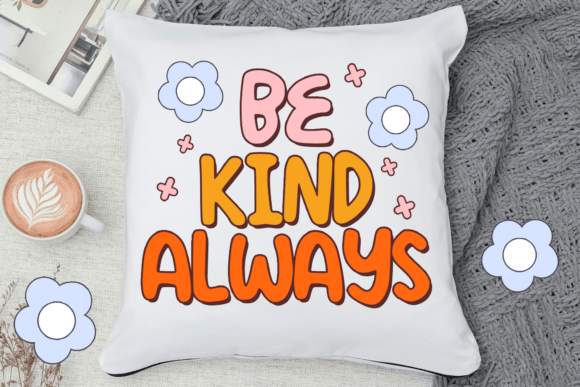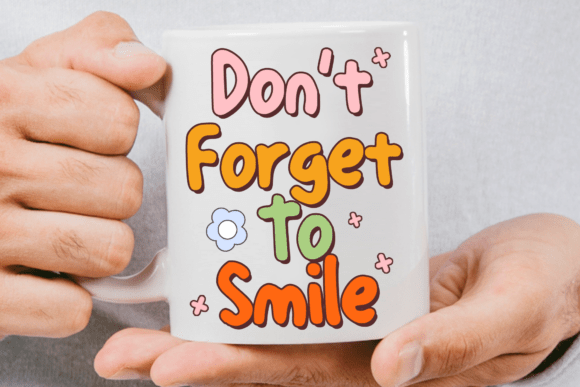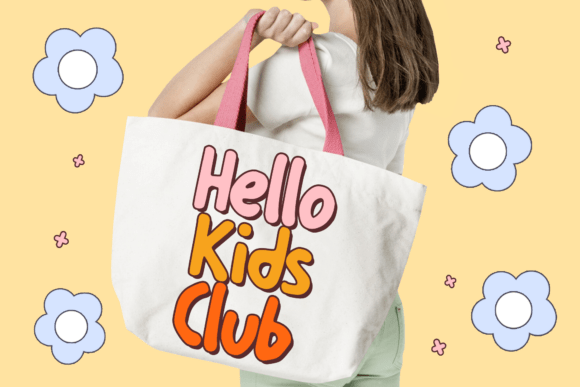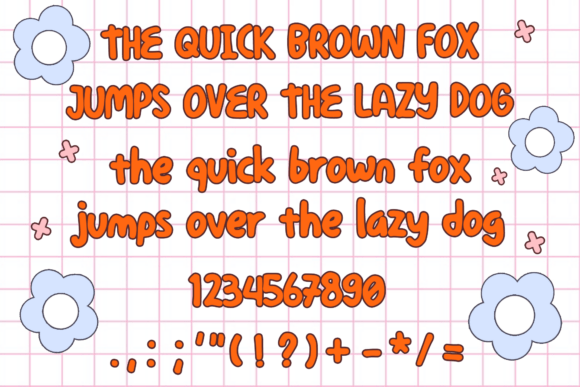
The Perfect Blend of Fun and Creativity
Have you ever been stuck in a design rut, desperate for that one element that will bring your project to life? Maybe it’s a quirky logo or a bold headline that screams for attention. Whatever it is, you know it’s out there – waiting to be discovered. For designers, the hunt for the perfect font can be a daunting task, but we’ve got the solution: Gempi Bold Handwriting Font.
This audacious and spirited font is not just another addition to your design arsenal – it’s a game-changer. With its playful charm and comic-like feel, Gempi Bold Handwriting Font is the perfect tool to elevate your designs and inject a trendy vibe. Whether you’re working on a magazine frontispiece, comic panel, or everyday typing needs, this font is sure to bring a touch of cool, creative panache to your work.
Gempi Bold Handwriting Font Key Features
- Font Style: Bold Handwriting Font with a modern twist, perfect for creative projects.
- Unique Characteristics: Distinctive letterforms, bold strokes, and a touch of elegance make Gempi Bold Handwriting Font stand out from other fonts.
Gempi Bold Handwriting Font Review
Overall, I’d say that the Gempi Bold Handwriting Font is a solid addition to any designer’s toolkit. Here’s what I like about it:
- ✨ Beautifully crafted: The font is incredibly detailed and visually appealing, making it perfect for use in titles, headings, and other design elements where you want to draw attention.
- ✨ Highly versatile: I’ve used the font in a variety of projects, from branding and marketing materials to social media graphics and web design, and it’s always performed well.
- ✨ Easy to read: Despite its bold and handwritten nature, the font is surprisingly easy to read, even at smaller sizes.
- ⚠️ Limited character set: The font only includes uppercase and lowercase letters, numbers, and a few punctuation marks, which can make it less useful for certain types of projects.
- ⚠️ Not ideal for body text: While the font is great for headings and titles, it can be a bit too bold and overwhelming for use in body text, where readability is key.
Overall, I’d give the Gempi Bold Handwriting Font 4 out of 5 stars. It’s a great choice for designers who need a bold, eye-catching font for their projects, but may not be the best fit for every situation.
Tips for Getting the Most Out of Gempi Bold Handwriting Font
Use Gempi Bold Handwriting Font for titles, headings, and emphasis.
Combine with other fonts for a unique and creative look.
Wedding invitations, event titles, and promotional materials.
Product packaging, branding, and marketing materials.
Personalized gifts, cards, and stationery.
Alternative Handwriting Fonts for Designers
Great Vibes is a beautiful, elegant handwriting font perfect for creative projects, invitations, and wedding designs. Its flowing lines and smooth curves make it ideal for adding a touch of sophistication to your designs. Compared to Gempi Bold Handwriting Font, Great Vibes is more refined and less bold, making it suitable for a wider range of applications.
Alex Brush is a classic, high-end handwriting font that exudes luxury and elegance. Its brush-like strokes and subtle flair make it perfect for high-end branding, packaging, and advertising designs. While Gempi Bold Handwriting Font is more playful and casual, Alex Brush is more formal and sophisticated, making it ideal for high-end projects.
Carolyna Pro is a modern, stylish handwriting font that’s perfect for fashion, beauty, and lifestyle designs. Its bold lines and dynamic flair make it ideal for adding a touch of glamour to your designs. Compared to Gempi Bold Handwriting Font, Carolyna Pro is more modern and edgy, making it suitable for younger audiences and trendy brands.
For optimal readability, we recommend using a font size between 12pt and 18pt, with a line height of at least 1.5 times the font size. This will help ensure that the text remains clear and legible, even at smaller font sizes.